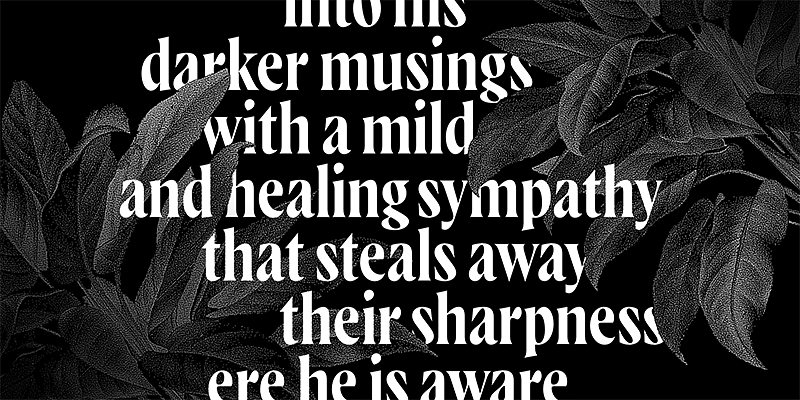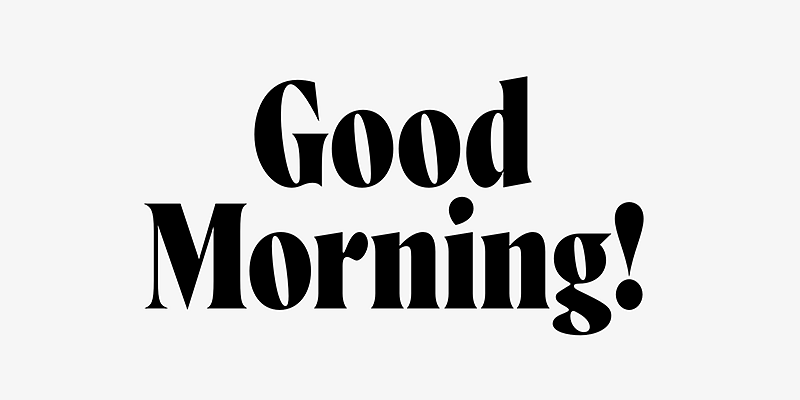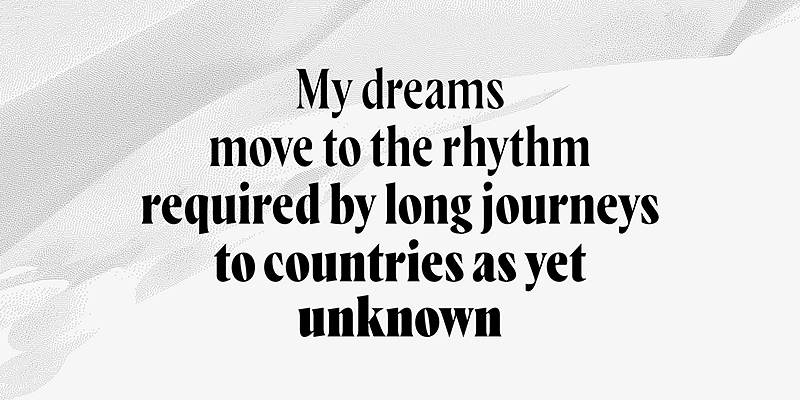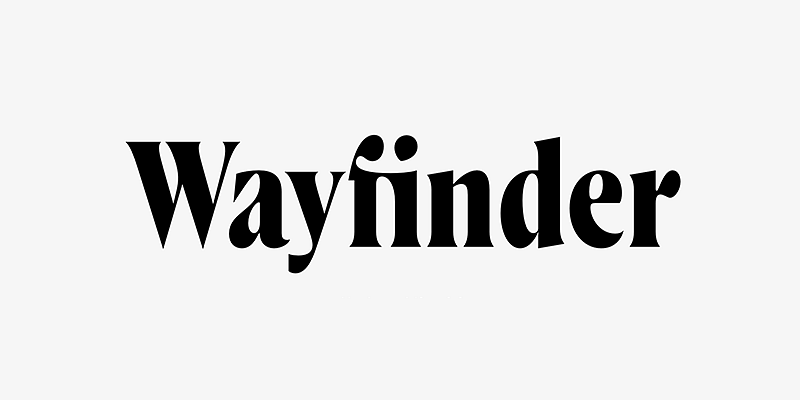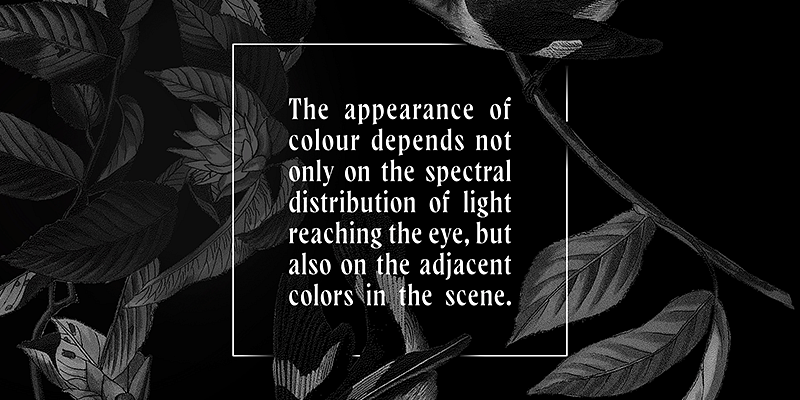
Wayfinder CF imparts both elegance and urgency to any text. Equally warm and intense, Wayfinder is a display font family made for logos, headlines, titles, and other short texts. Seven weights cover everything from an airy thin to a brilliant heavyweight.